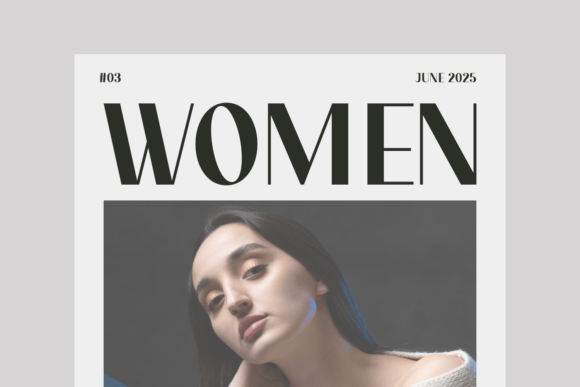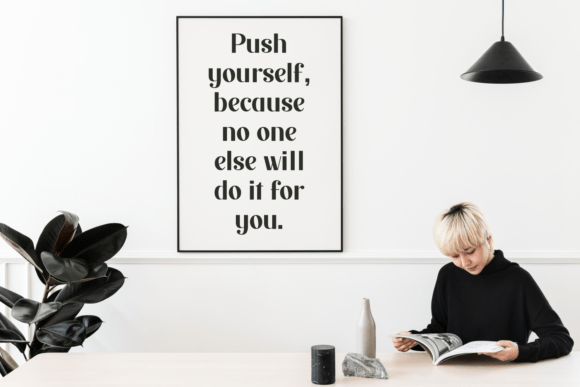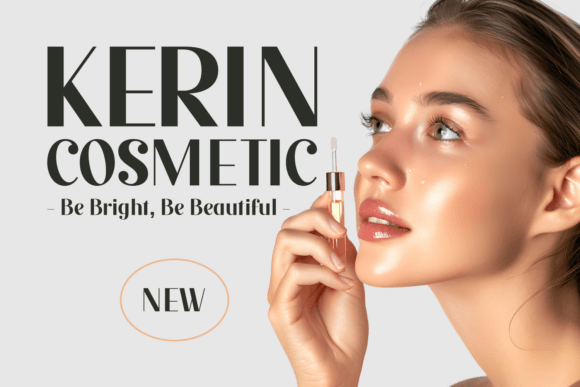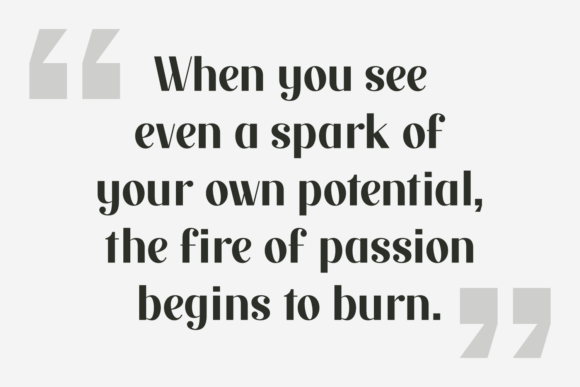
The Designer’s Dream Font: Catch Rates and How to Make the Most of It
I’ll never forget the time I was working on a project for a trendy boutique client, and I needed a font that would make their branding stand out. I spent hours scouring through font libraries, but nothing seemed quite right. That was until I stumbled upon Catch Rates, a beautiful display font with a dramatic personality. It was love at first sight! ✨
An Honest Review of Catch Rates
So, what makes Catch Rates so special? Let’s dive into the good stuff and a few quirks I’ve discovered.
- 💥 Dramatic Impact: Catch Rates is perfect for creating striking headlines, posters, magazines, and product packaging that demand attention.
- 🎨 Versatility: It’s ideal for modern advertising and social media posts, but will also bring your next craft project to life.
- 📈 Scalability: This font looks great at large sizes, making it perfect for billboards, signage, or any high-impact display use.
- ✅ Easy to Read: Despite its dramatic flair, Catch Rates remains surprisingly legible, even at smaller sizes.
- 🤔 Limited Use in Body Text: While Catch Rates is stunning for headlines, it’s not the best choice for lengthy body text due to its display-focused design.
- ⚠️ Glyph Overload: With so many stylistic alternates and glyphs available, it can be overwhelming to navigate without a clear understanding of OpenType features.
The Story Behind Catch Rates
Catch Rates was designed with the intention of creating a font that would capture attention and convey a sense of drama. Inspired by the world of high-fashion and luxury branding, the designer aimed to craft a typeface that would be both elegant and impactful. The result is a font that is equal parts sophisticated and bold.
Q: What makes Catch Rates suitable for modern advertising?
A: Catch Rates’ dramatic personality and versatility make it perfect for creating eye-catching headlines and attention-grabbing graphics.
Q: Can I use Catch Rates for body text?
A: While Catch Rates is stunning for headlines, it’s not the best choice for lengthy body text due to its display-focused design.
Q: Does Catch Rates support OpenType features?
A: Yes, Catch Rates is an OpenType font, offering a range of stylistic alternates, glyphs, and character variations.
Q: Is Catch Rates suitable for craft projects?
A: Absolutely! Catch Rates’ unique personality and versatility make it an excellent choice for craft projects, such as handmade cards, posters, or DIY signage.